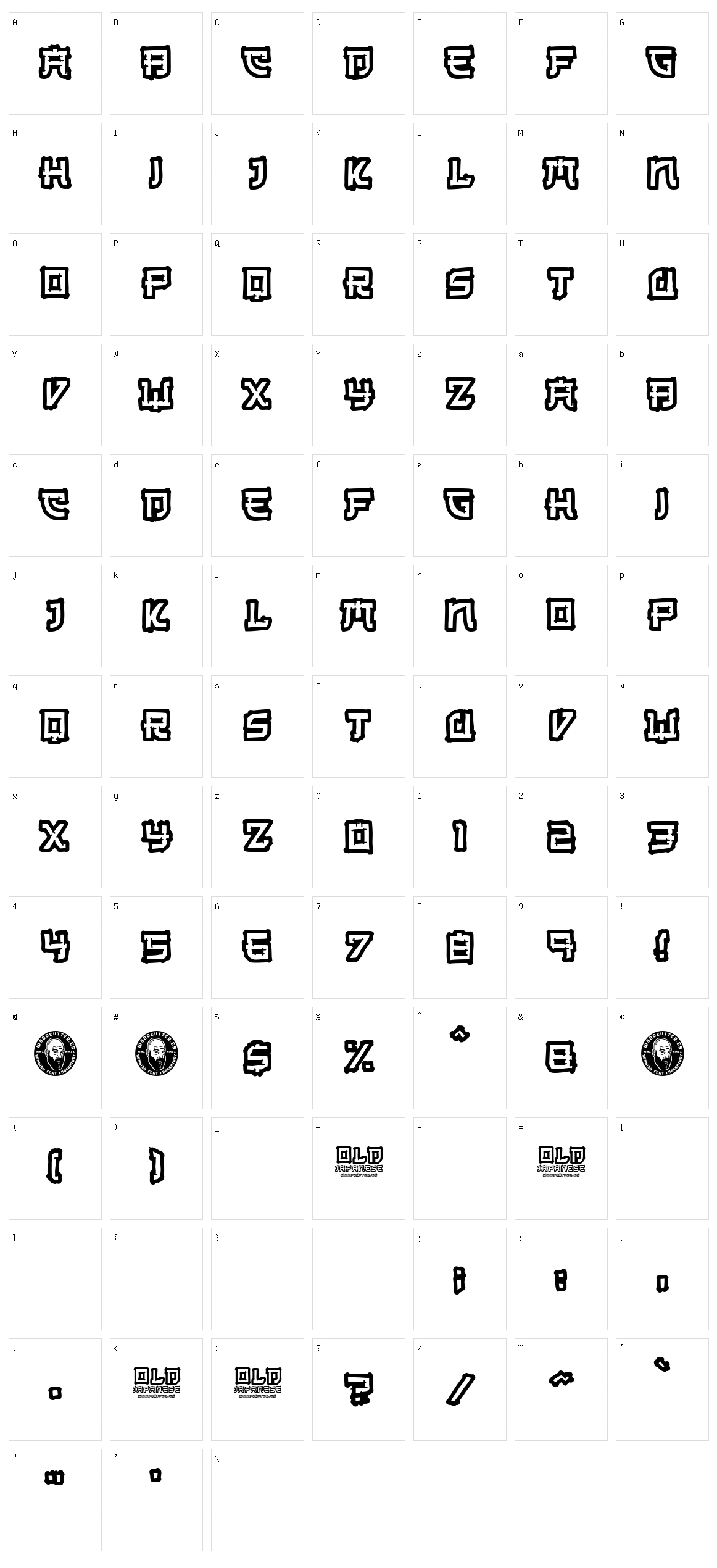
The free font Old Japanese is carefully designed by Woodcutter, showcasing a thoughtful balance of creativity and usability and falls under the Asian font style. When you download the ZIP file, it contains only 107.58 KB of font files, making it lightweight and quick to download. Please review the license details below to understand permitted usage and distribution rights. If license information is not available, we recommend using this font for personal projects only or contacting the author directly for commercial usage permissions.